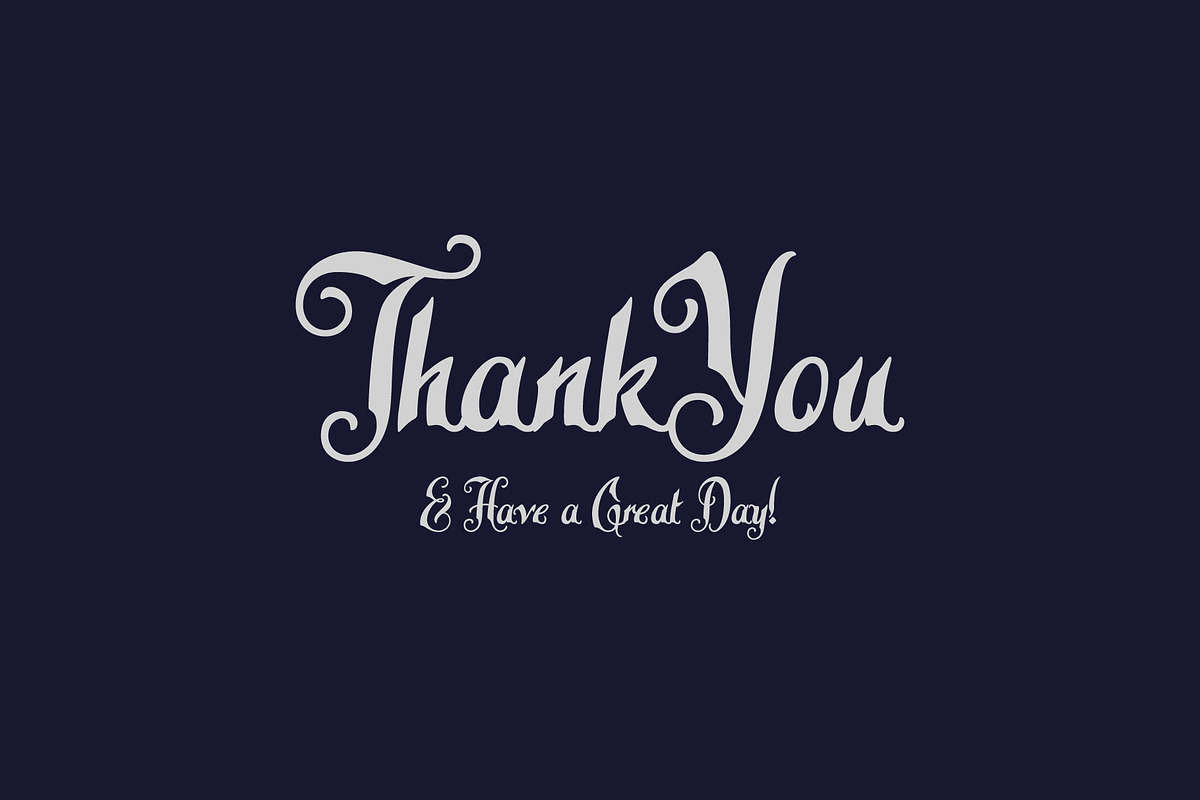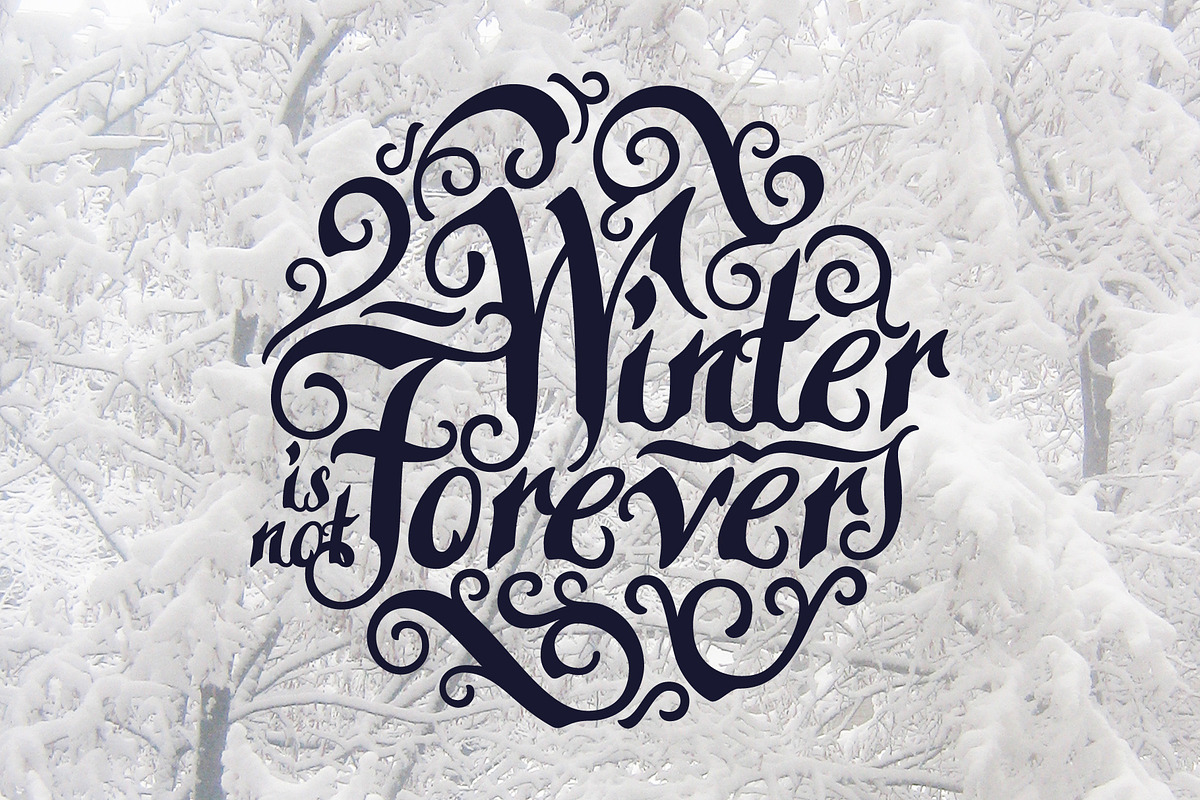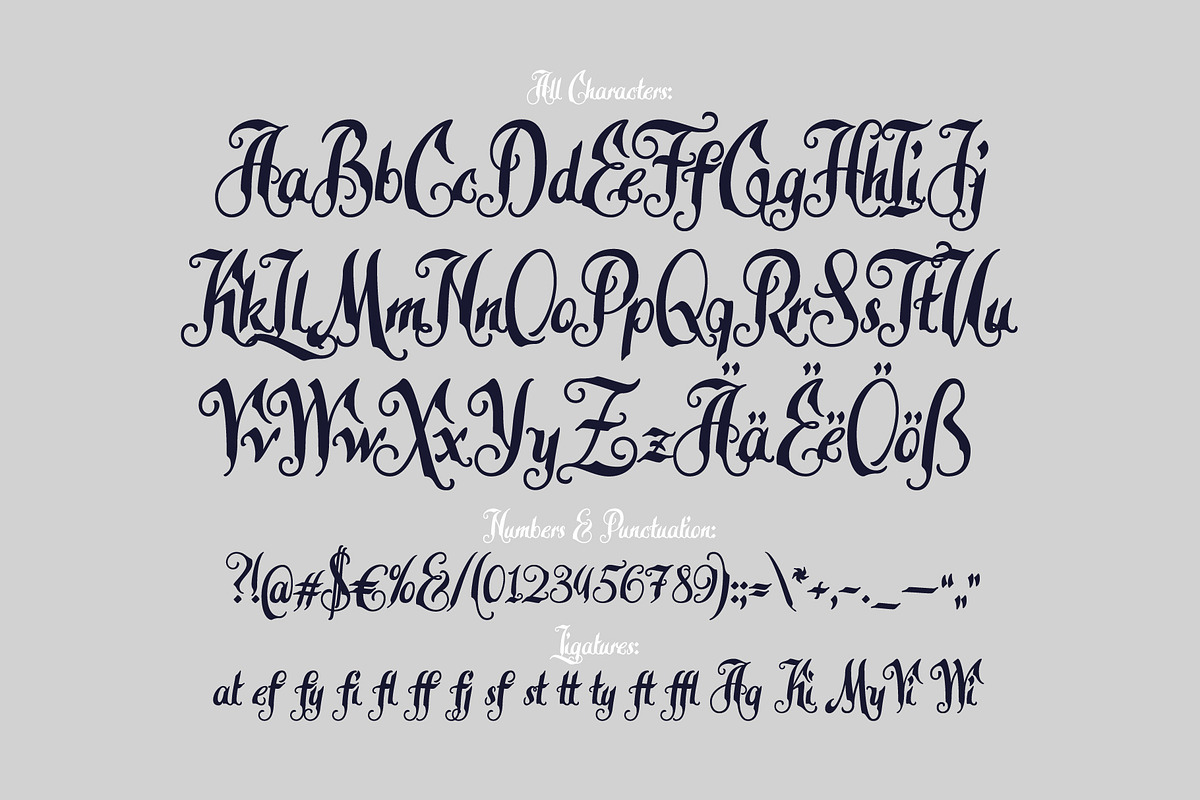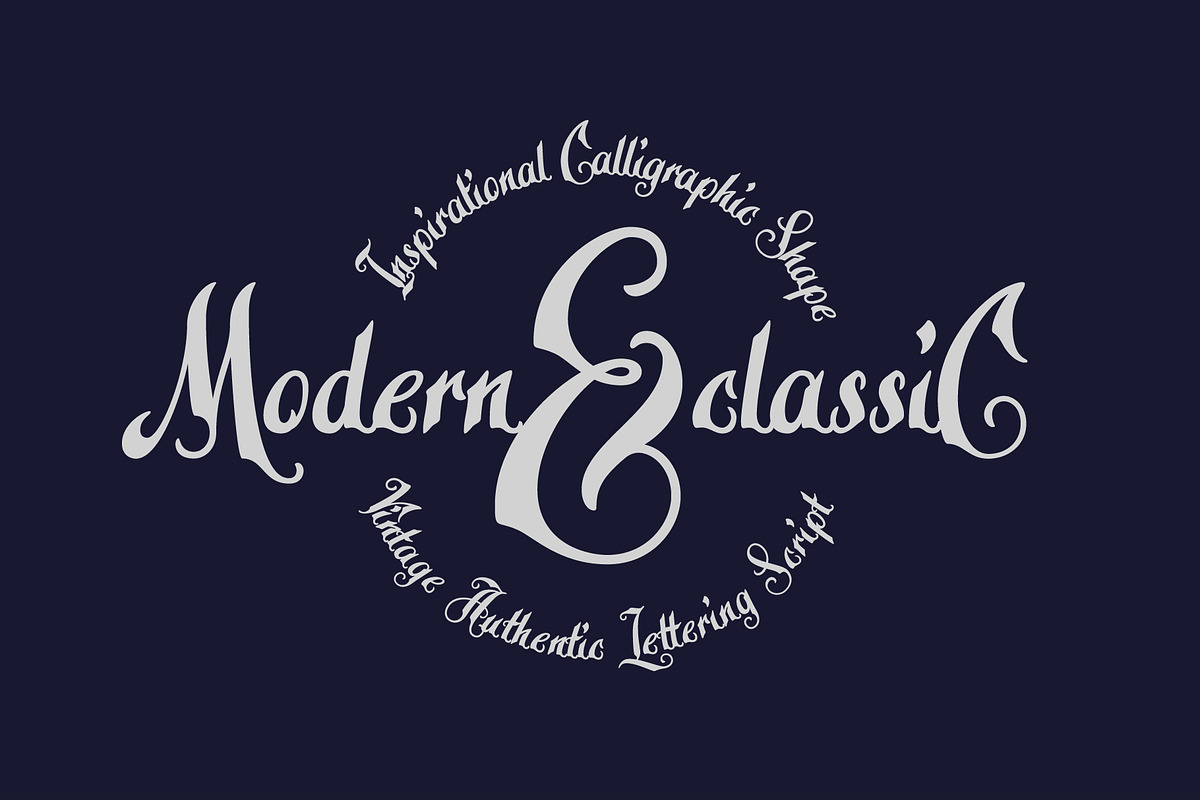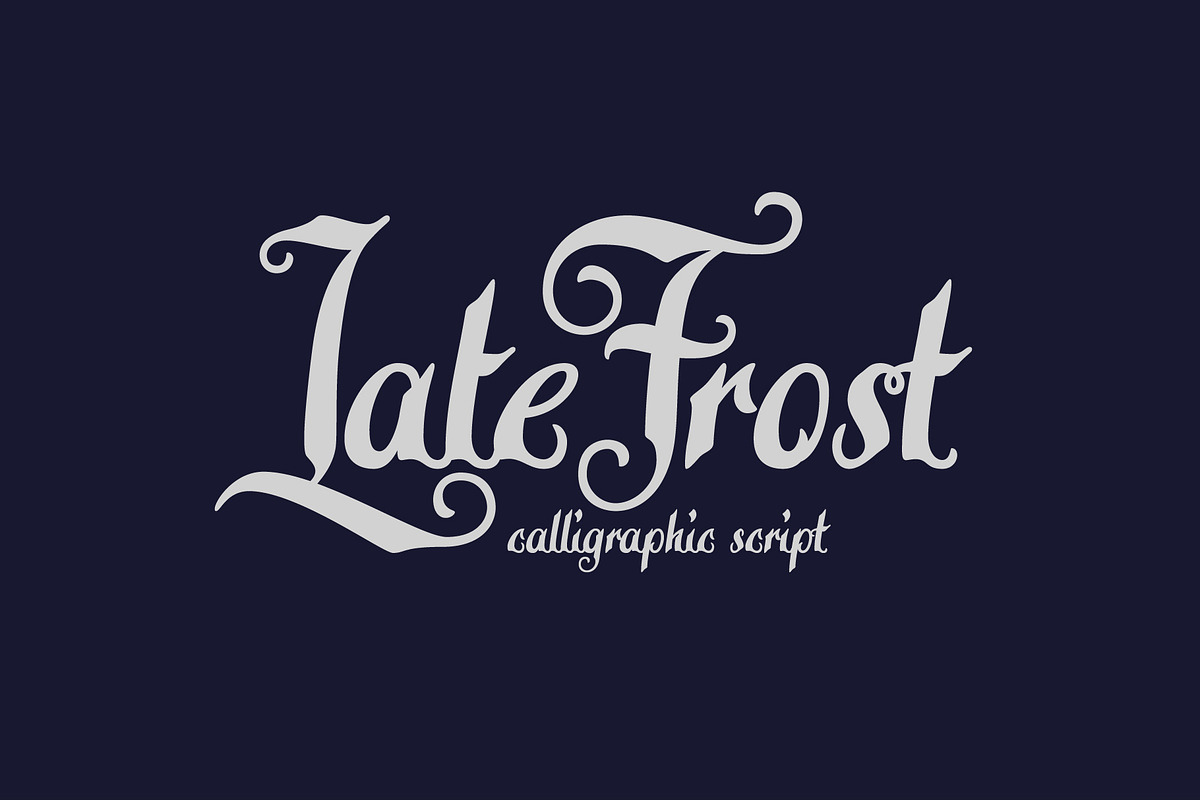
Late Frost font
Hi. Introducing a calligraphic script font Late Frost. It's an elegant deocrative font with lots of ligatures. Also, as a bonus, you'll get a vector lettering composition with motivational text quote "Winter is not Forever" (2nd screenshot).
P.S. All available caracters you can see on the 4th screenshot